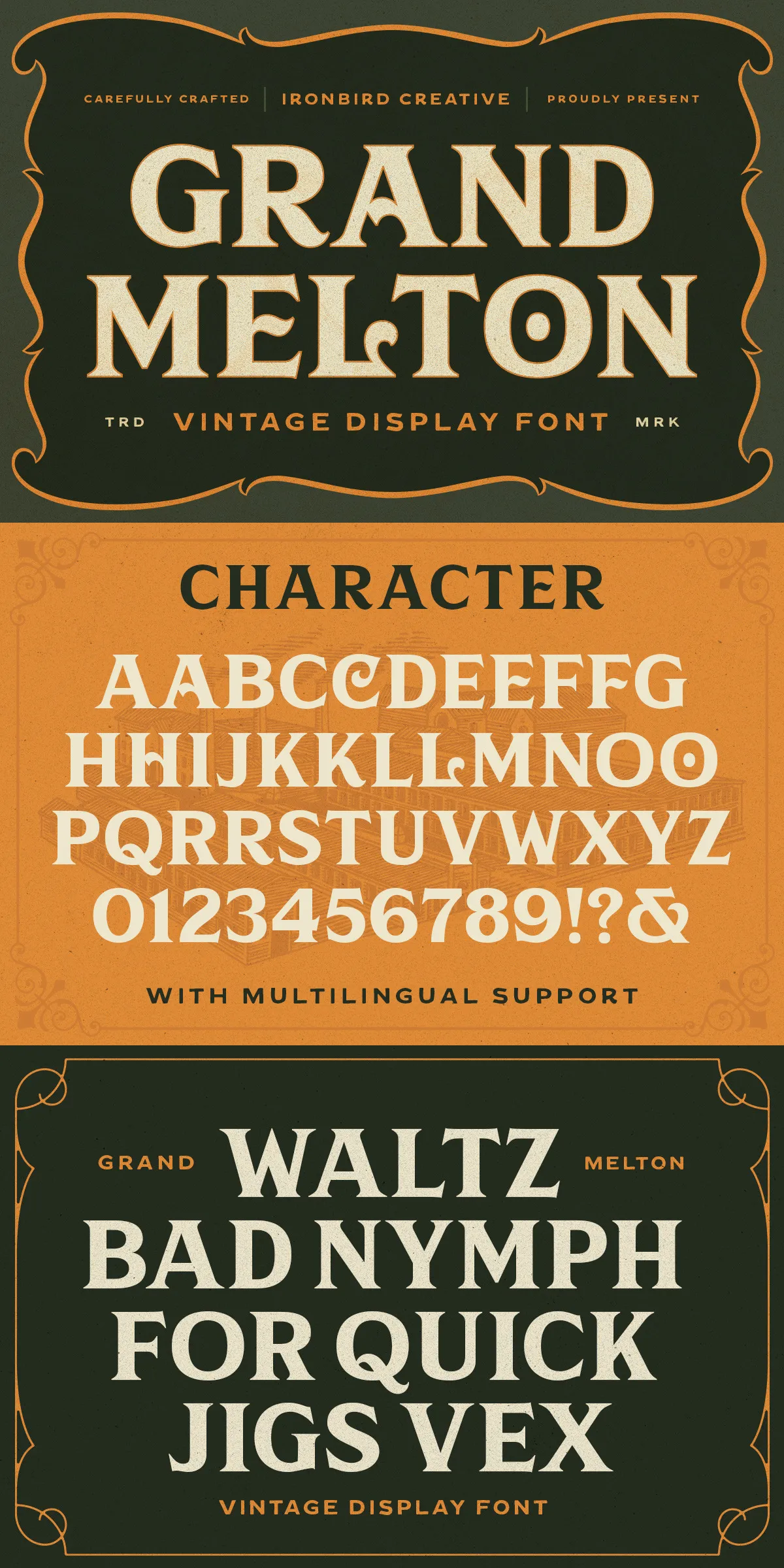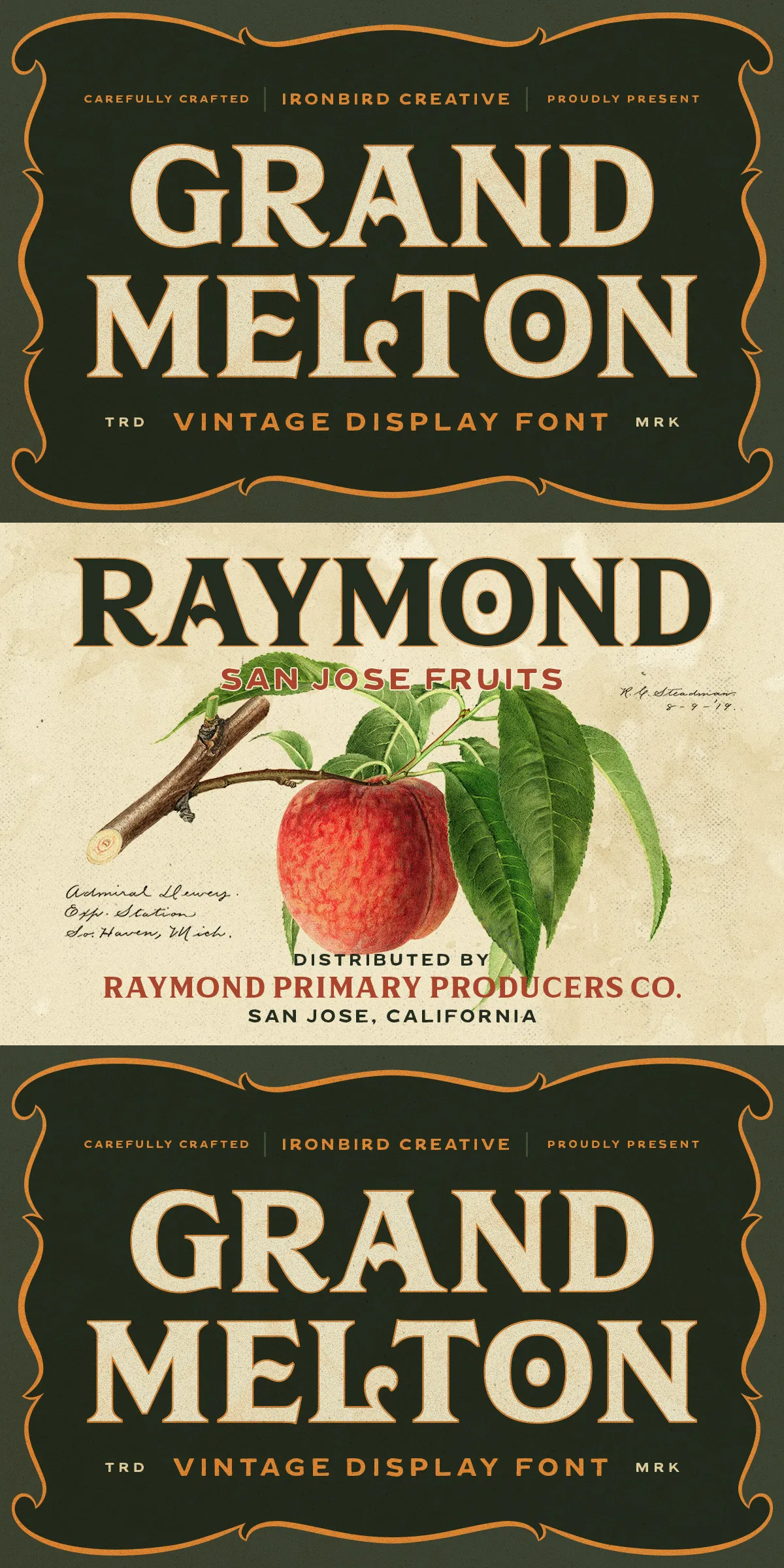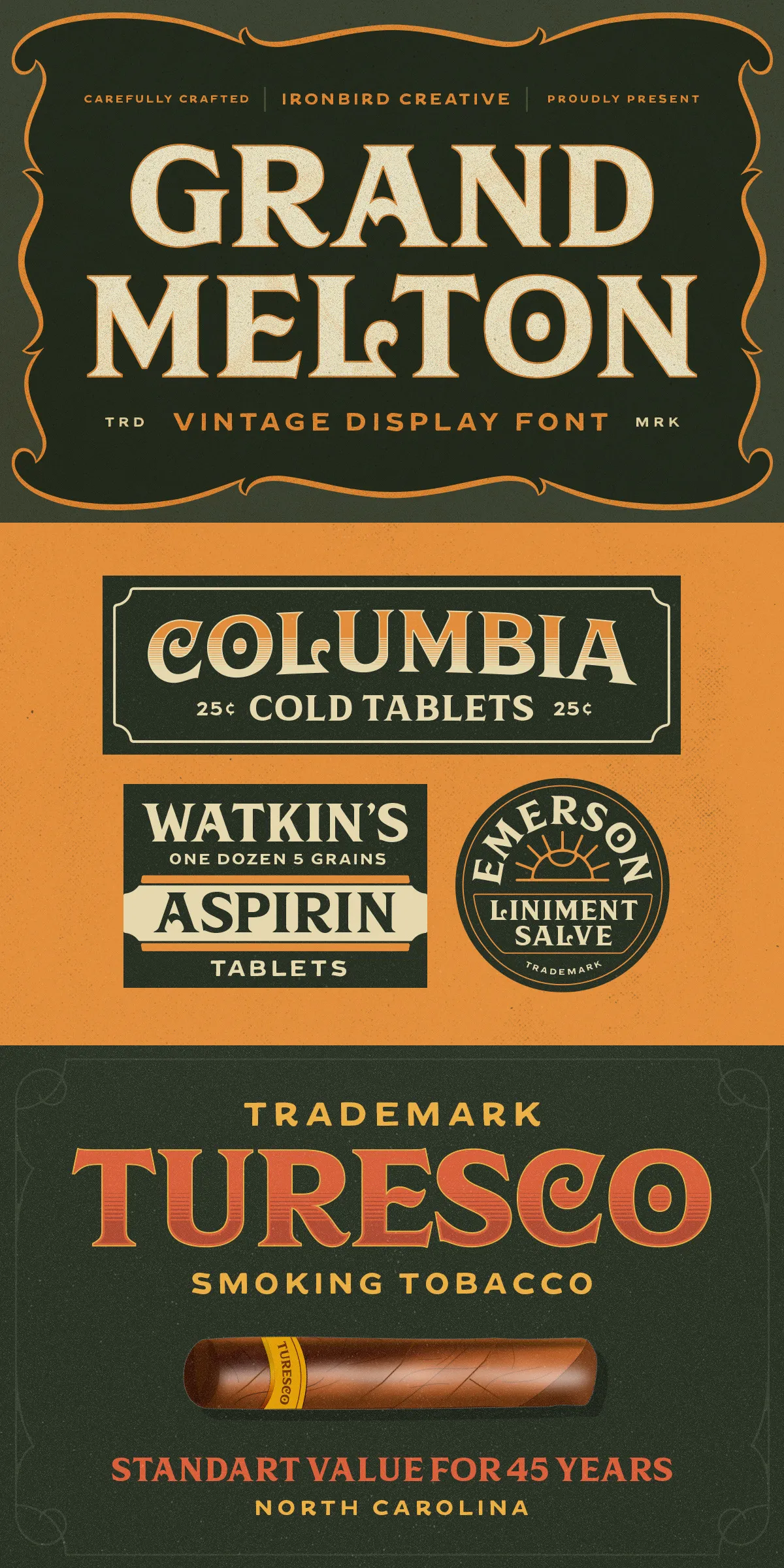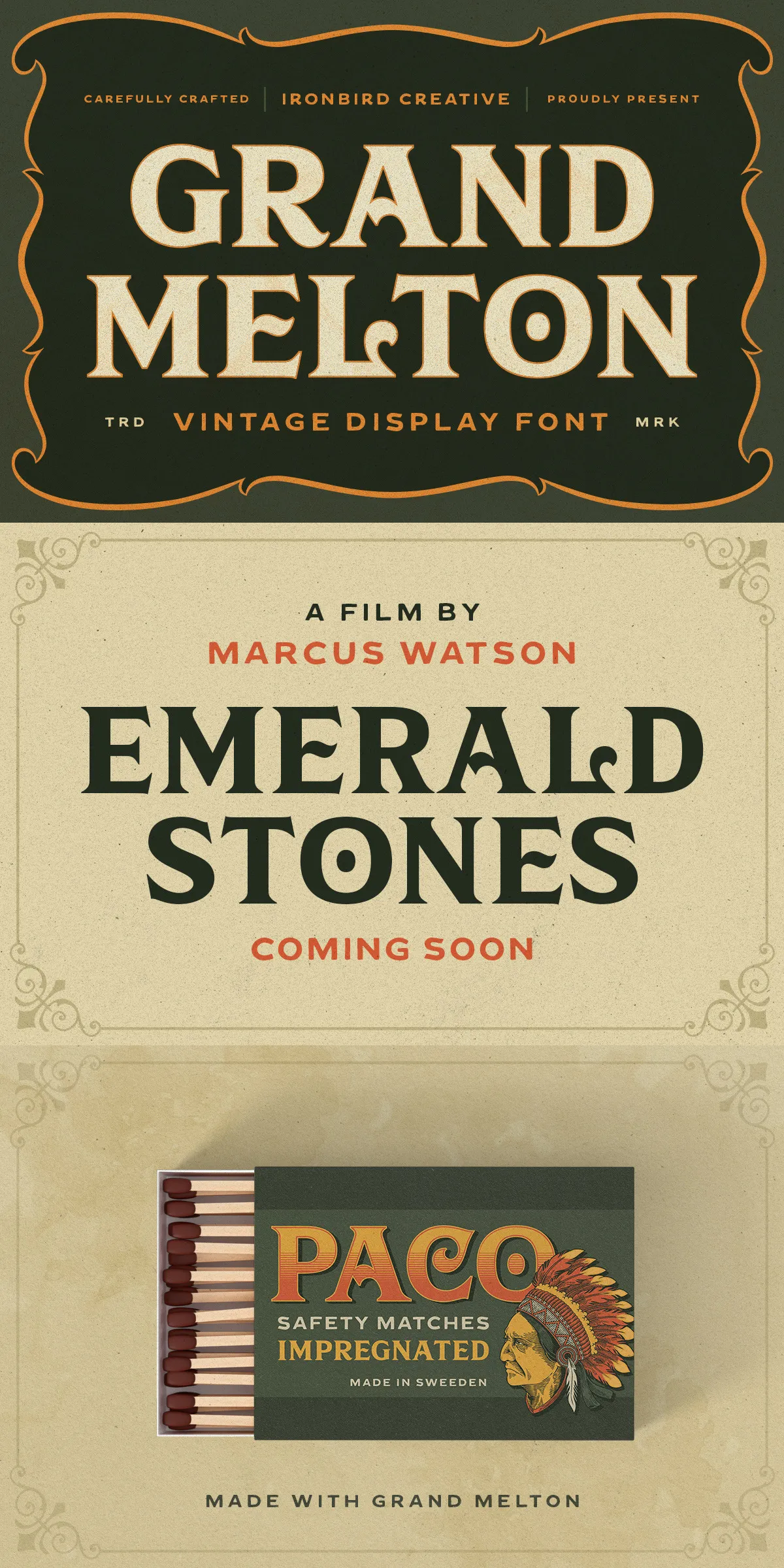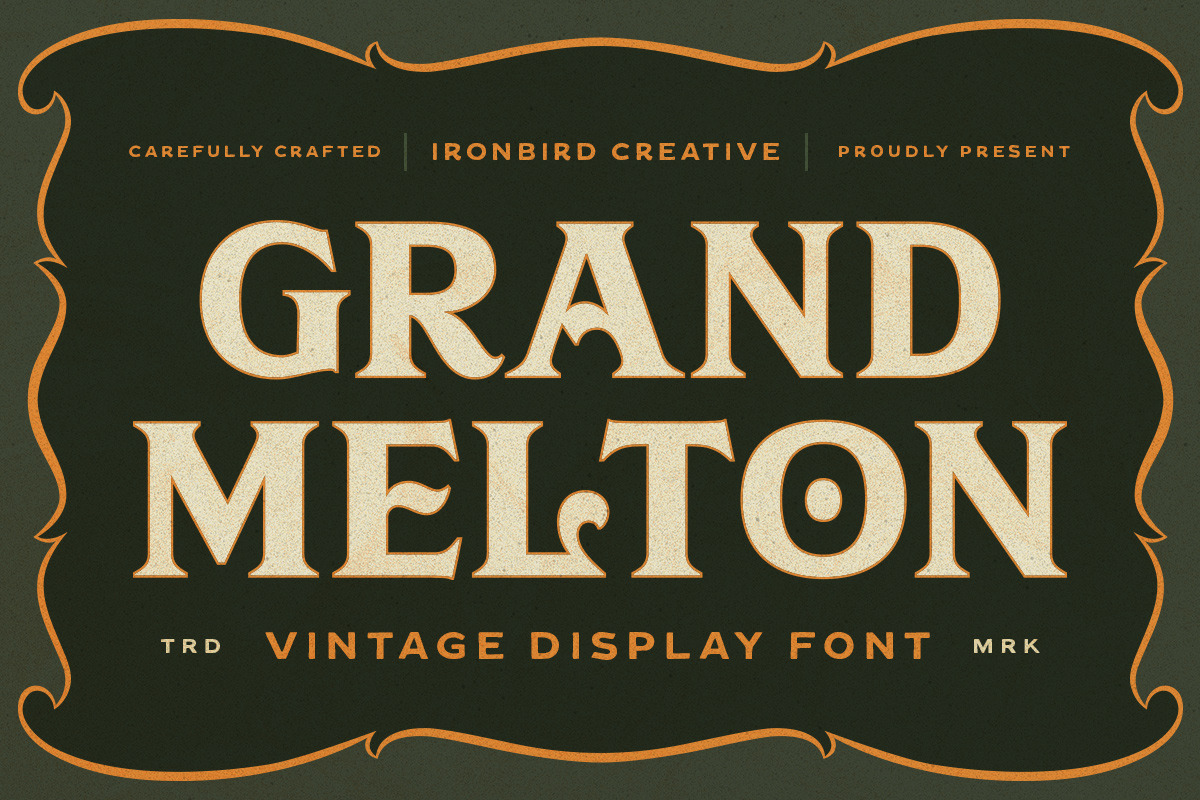
IC Grand Melton – Display Typeface
Step into the golden age of typography with IC Grand Melton, a display typeface that doesn’t just recall the past—it redefines it. Designed for creators who crave a strong, nostalgic aesthetic with contemporary impact, Grand Melton blends the soulful imperfections of vintage lettering with razor-sharp modern precision. This is more than a font; it’s a visual manifesto for anyone who believes design should tell a story.
Where Vintage Meets Modern: The Crafted Aesthetic
Every stroke in IC Grand Melton is the result of meticulous craftsmanship. This typeface is inspired by the bold, hand-lettered signs of mid-20th-century printing—think neon-lit marquees, retro record sleeves, and classic movie posters—but elevated with digital clarity and professional scalability. The character design features generous serifs, bold weight distribution, and subtle quirks that add personality without sacrificing readability.
• Signature Flourishes: Watch your headlines come alive with natural, hand-drawn variations in the letterforms—each character feels intentional, full of history, and uniquely expressive.
• Bold Presence: Engineered to dominate any composition, Grand Melton commands attention in logos, posters, and social media visuals, instantly making your project feel significant.
• Timeless Versatility: Whether you’re designing a vintage-themed t-shirt, a coffee shop logo, or a motivational quote graphic, Grand Melton delivers authenticity and style in equal measure.
Two Distinct Variants for Maximum Creativity
IC Grand Melton isn’t just one font—it’s two. With two fully realized versions, you unlock limitless design potential:
• Grand Melton Outline: A bold, graphic-style version that transforms the font into open shapes. This variant is ideal for:
• Creating layered, textured designs with custom fills and gradients
• Designing for large-format printing (banners, posters, signage)
• Generating dynamic motion graphics and animations
• Producing a “cut-out” or handcrafted visual effect
The Outline version is not a mere stylistic choice—it’s a design tool that transforms your project from good to unforgettable.
Designed for Real-World Projects: Perfect for Every Medium
Whether you’re working on a print campaign, a digital brand, or a custom merch line, IC Grand Melton performs flawlessly across formats:
• Branding & Logos: Craft a unique brand identity that feels authentic, bold, and deeply memorable. Grand Melton instantly adds vintage credibility to any business.
• T-Shirt & Apparel Design: Turn your message into wearable art. The bold strokes ensure maximum visibility and impact on fabric, while the vintage style gives your designs a timeless appeal.
• Posters & Exhibitions: Create visuals that stop people in their tracks. Grand Melton’s dramatic scale and nostalgic warmth make your events, concerts, or art shows stand out.
• Quote Graphics & Social Media: Design powerful motivational, artistic, or humorous quotes that go viral. The font’s expressive nature makes every message feel personal and impactful.